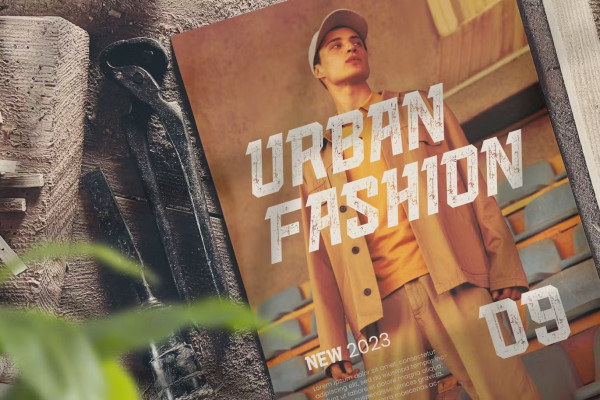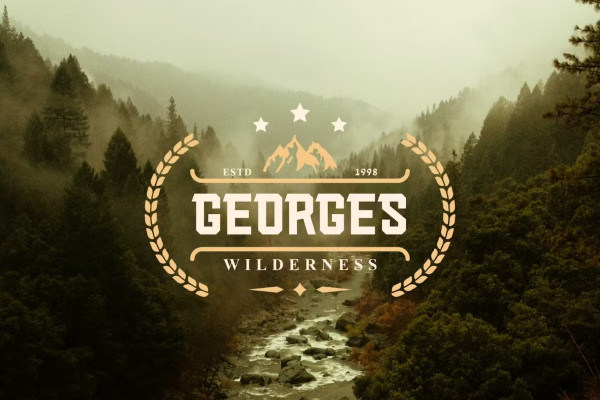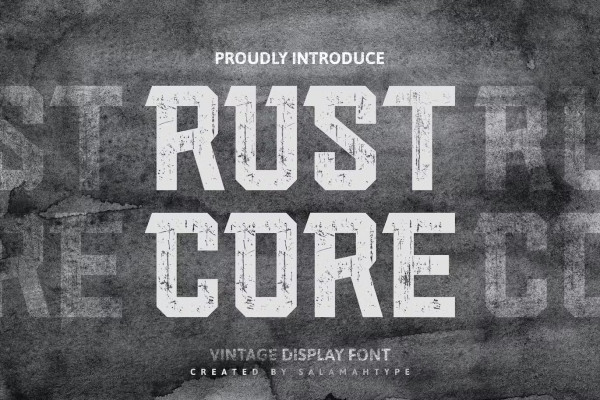
Rust Core Font
RUST CORE Font – a mechanical font with 4 included styles (Clean and Stamped/Textured). Perfect for branding projects, logos, labels and more. With texture like rust core, it will make your design, product, logo or label cooler, unique and meaningful.